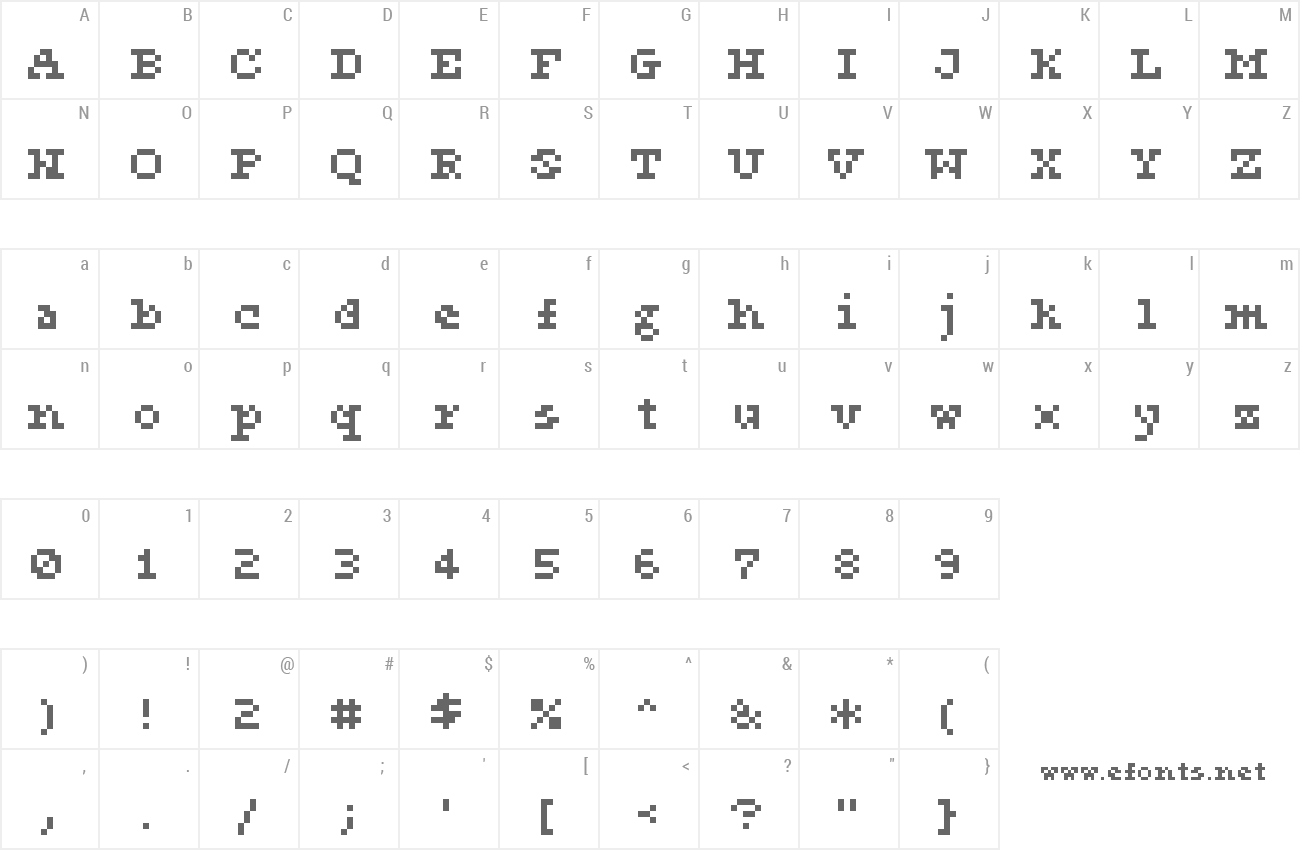
| Font name: | Microserif |
| Categories | Bitmap, help |
| Author: | jeti |
| Note by jeti | |
Microserif by jeti: A serif font on a very, very small scale. You are free to use this font for personal or commercial projects, all I ask is that you include credit. Licensed under CC BY 4.0: https://creativecommons.org/licenses/by/4.0/ More info: https://fontenddev.com/fonts/microserif/ |